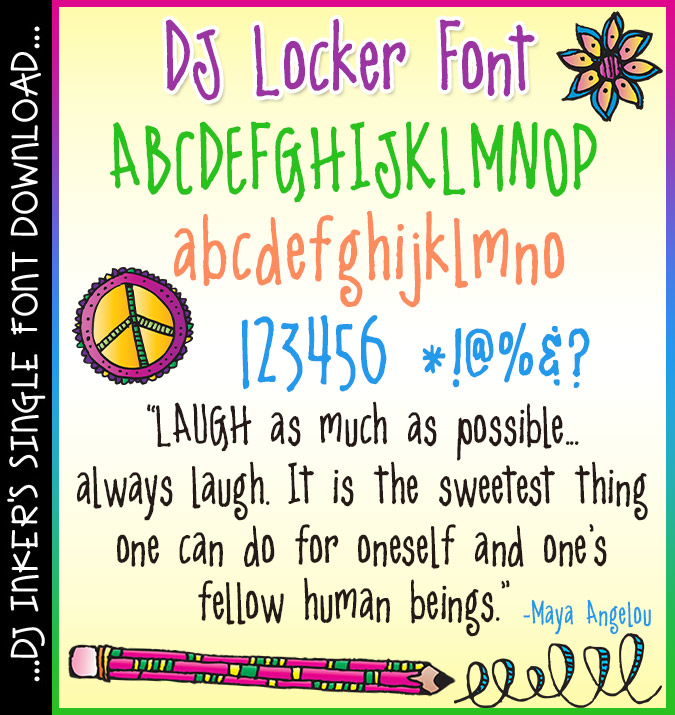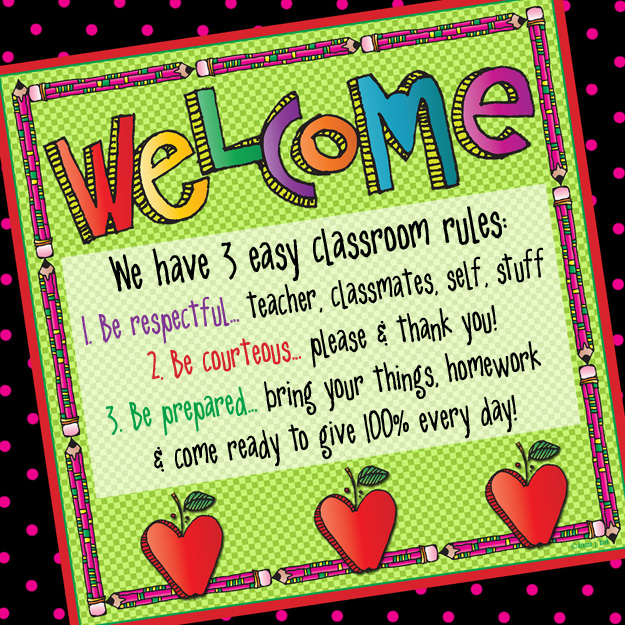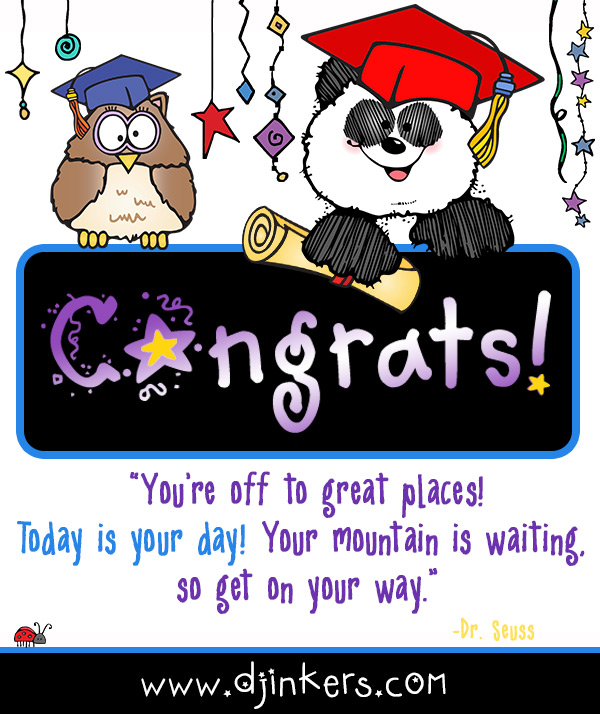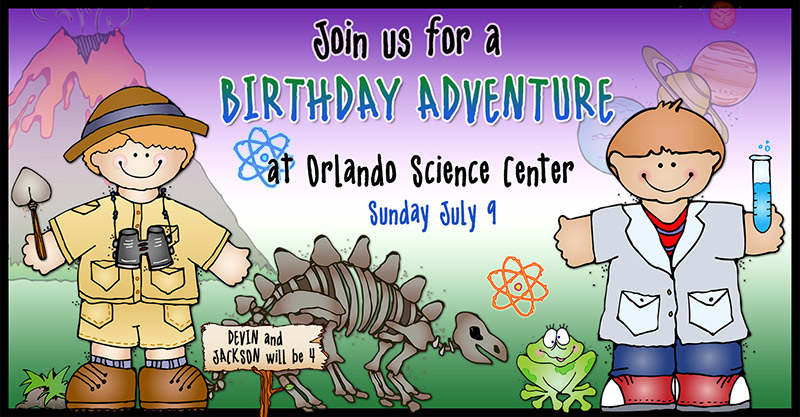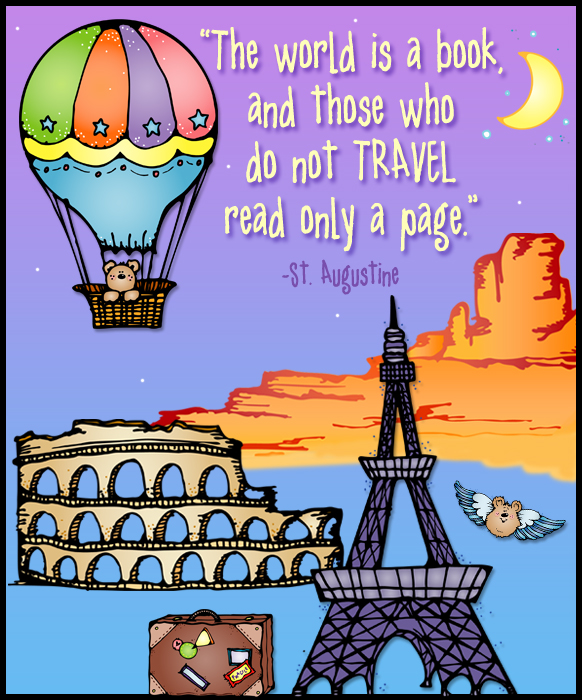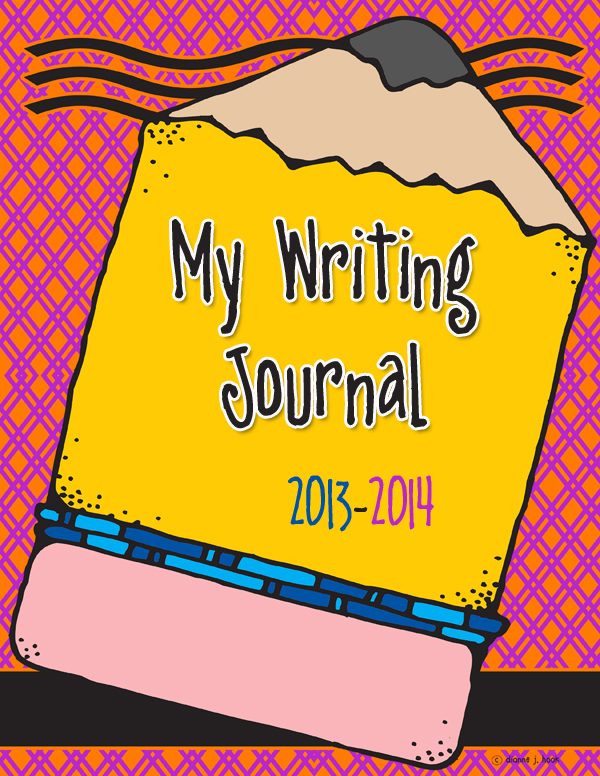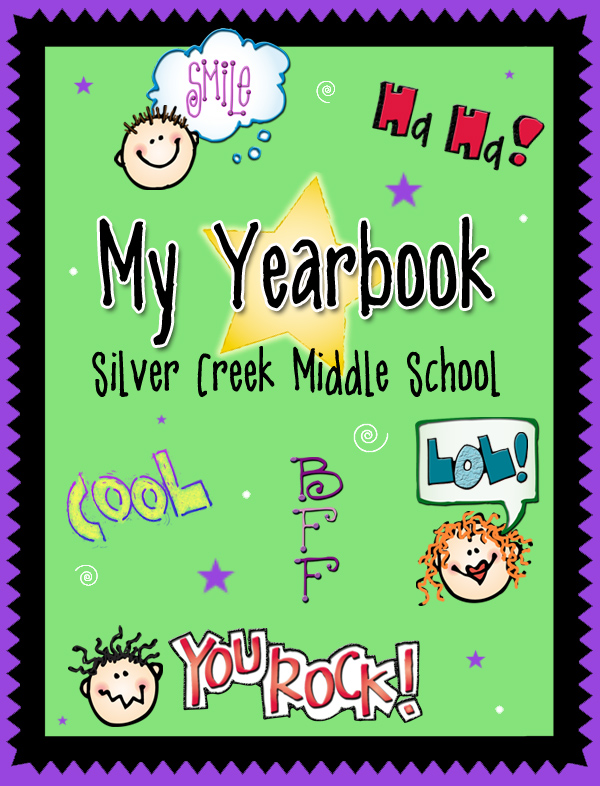
DJ Locker Font Download
Add style and flair to your creative projects with DJ Locker, the font that packs a punch! Bold,
energetic and easy to read, this lettering works great for both eye-catching
headlines and text!
Whether you're looking to spark a smile on a newsletter or make a statement
on a poster, DJ Locker delivers a playful yet professional vibe. Perfect
for school stuff, hand-outs, party decorations, home office and crafting.
lettering by Dianne J Hook © DJ Inkers.